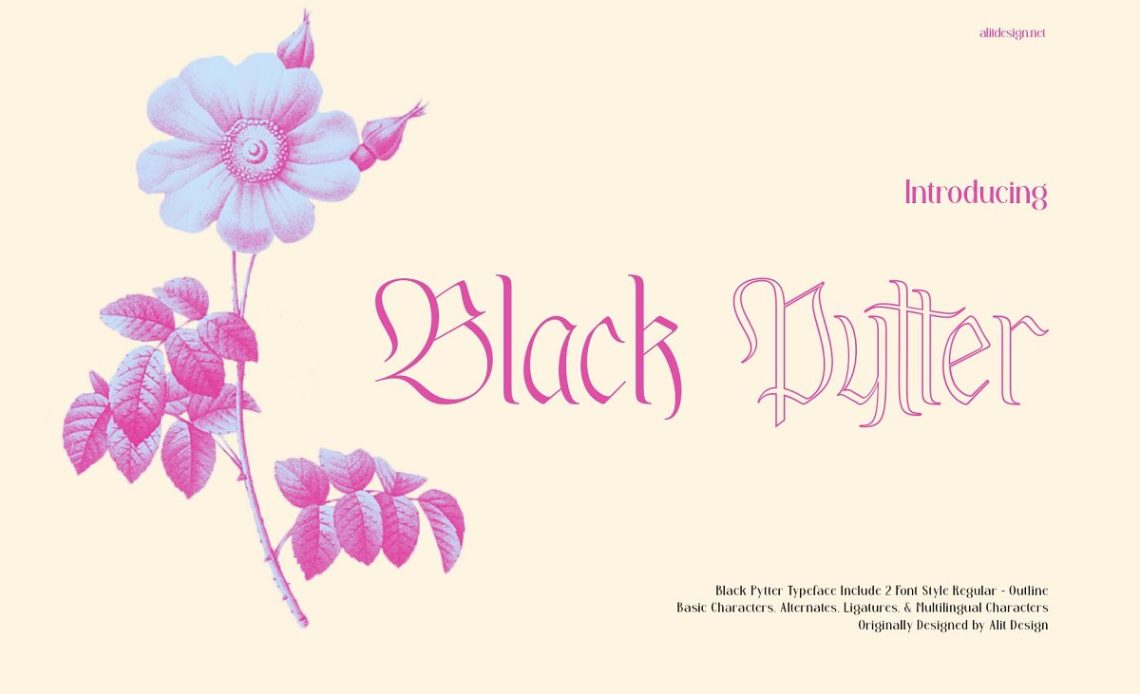
Introducing the Black Pytter Typeface - the ultimate font for wine tumblers! Created by the talented designer Alit Suarnegara, this font family is the perfect choice for those looking to create bold and striking designs with a modern twist.
Inspired by the classic Blackletter typeface, the Black Pytter Brave font is a unique and strong font that is sure to make your designs stand out. With its alternative options such as swashes, ligatures, and alternative characters, this font is incredibly versatile and easy to use, allowing you to create designs with strong or dark themes effortlessly.
But that's not all - the Black Pytter font also comes with multilingual characters, making it the ideal choice for international designers who need to use a variety of languages in their work. Whether you're creating music album covers, tattoo logos, whiskey labels, or packaging for pomades, this font is sure to deliver the impact you're looking for.
Overall, the Black Pytter Typeface is a font that packs a punch. Its modern twist on the classic Blackletter typeface, combined with its versatility and multilingual support, makes it the perfect choice for designers looking to make a statement. So why wait? Download the Black Pytter Typeface today and take your designs to the next level!